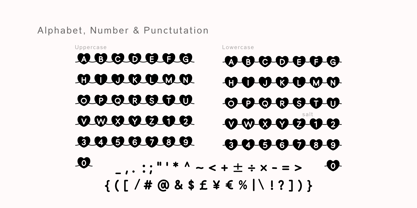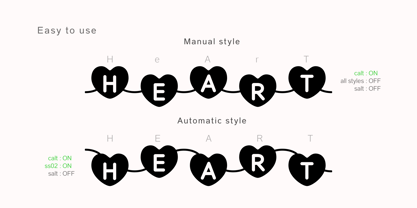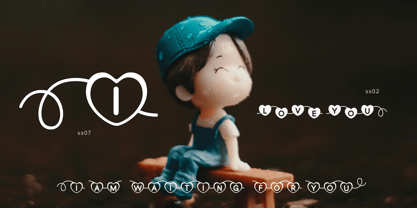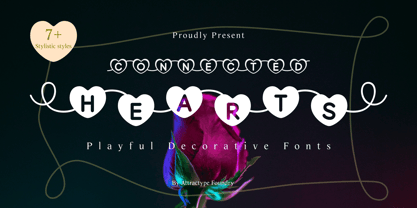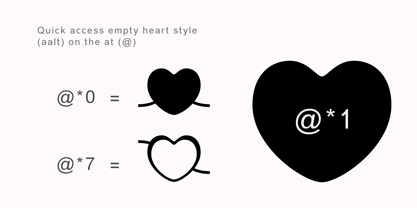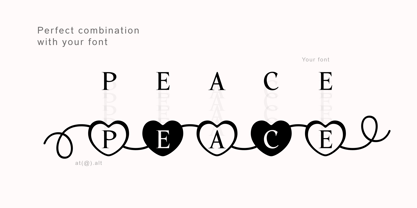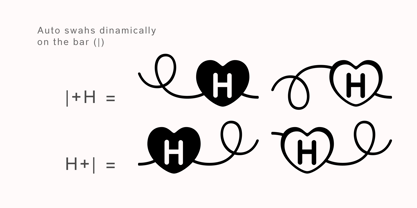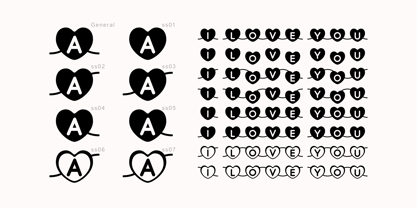
Connected Hearts
by Attractype
The Connected Hearts Font Family was designed by Saefulloh and published by Attractype. Connected Hearts contains 1 styles.
Connected Hearts is a decorative love-themed font with interlocking heart symbols (except ss01 style). Easy to use and has many style options. You can choose the style manually or automatically. Suitable for all romantic design projects, happy themes, wedding invitations, birthdays, valentines day, gift tags, banners and more.
You can access swashes by adding | (bar) before or after the letters and numbers. You can also access the empty heart style by typing @(at) + *(asterisk) + 0 (numbers 0 to 7).
example:
- |heart| (starting and ending swash)
- @*1 (style 1 empty heart)